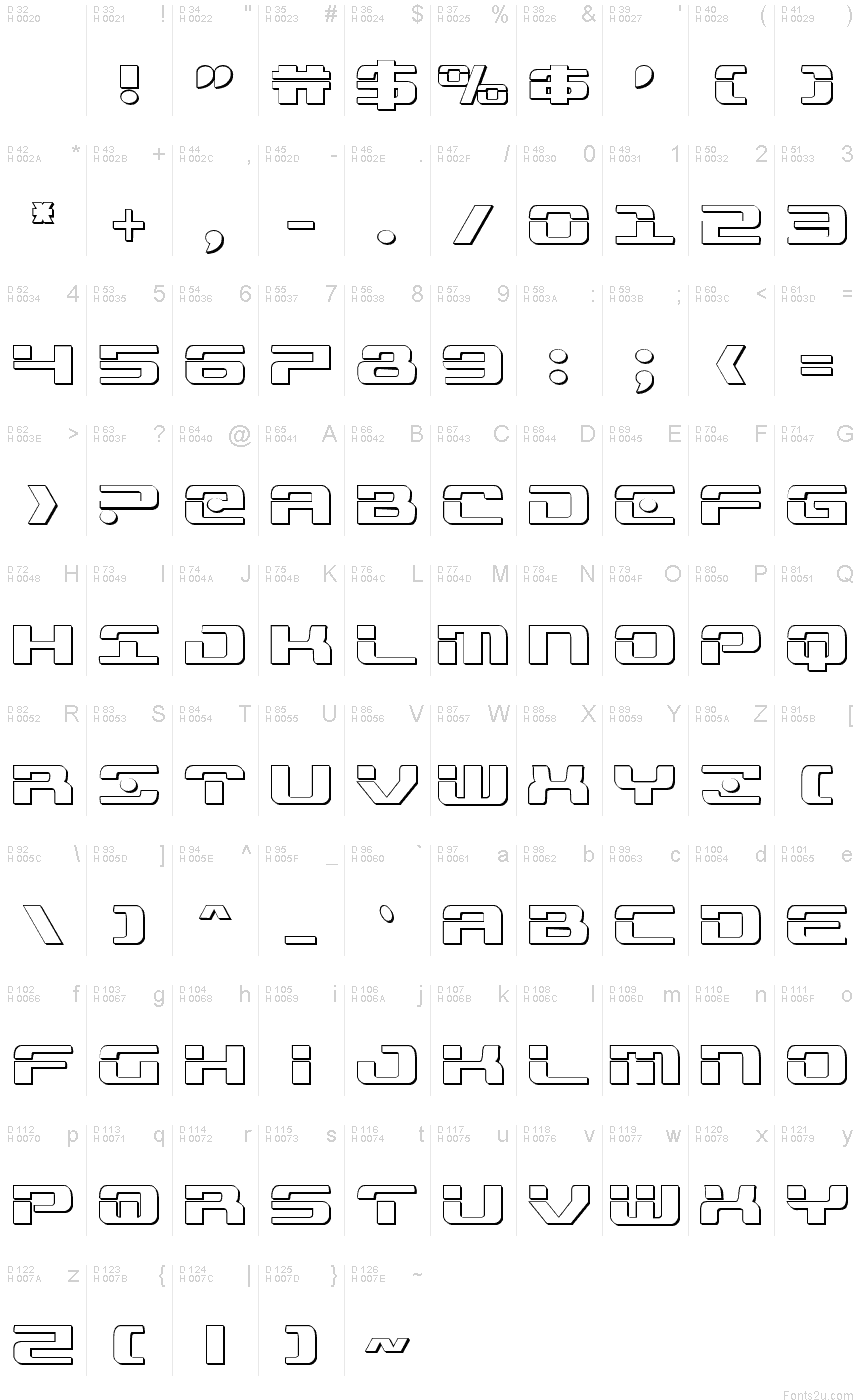
Troopers 3D by Daniel Zadorozny of Iconian Fonts is a free futuristic outlined display font with broad, extended proportions. Rounded outer corners meet squared internal cuts, and the open linear construction gives the letters the look of engineered panels or streamlined machine parts.
Science fiction and advanced technology provide its clearest setting. It can shape game interfaces, film title cards, and event posters with a convincing space-age vocabulary. The same mechanical silhouette also suits esports merchandise and electronics branding, linking entertainment and product design through lettering that resembles a custom control-panel graphic.
Troopers 3D